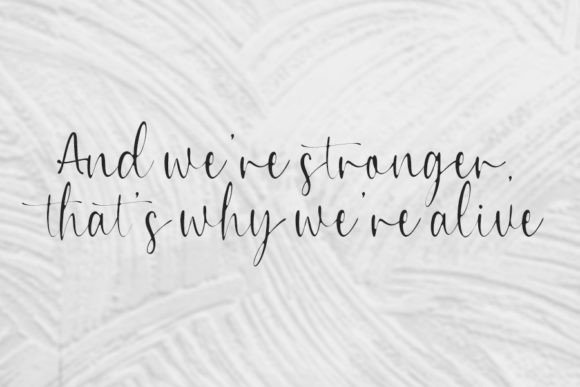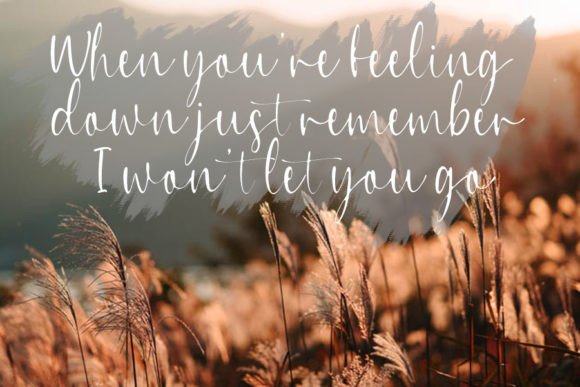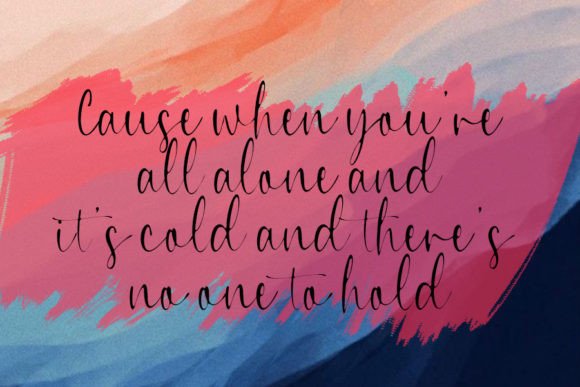
Adding a Personal Touch to Your Designs
You’ve just finished brainstorming the perfect concept for your next project, but something’s missing. The colors, the layout, the message – it all feels a bit too generic. That’s when you start thinking about the little things that can elevate your design from ordinary to extraordinary. For many creatives, the key to unlocking that special something lies in the typography.
That’s where the Cataliy Font comes in – a beautiful, hand-written style that adds a personal and welcoming touch to your designs. This unique font is perfect for creating custom stationery, greeting cards, and so much more. With its one-of-a-kind letterforms, you can make a lasting impression on your audience and leave a lasting memory.
The Cataliy Font is a valuable tool for designers who want to stand out from the crowd and connect with their audience on a deeper level. Its versatility and charm make it an ideal choice for a wide range of projects, from wedding invitations to business cards.
Cataliy Font Key Features
- Font Style: Elegant Script with a touch of modernity
- Unique Characteristics: Includes swashes, ligatures, and alternate characters for added flair
Cataliy Font Review
First of all, let’s talk about what works well with Cataliy Font. ✨ The elegant script design is perfect for creating eye-catching headings and titles. The fluidity of the letters is smooth and beautiful, making it ideal for any creative project. ✨ The font also has a good range of weights and styles, allowing you to customize the look to your liking.
Another great thing about Cataliy Font is its versatility. ✨ It can be used for both digital and print designs, making it a great choice for a wide range of applications. Whether you’re designing a website, a brochure, or a social media post, Cataliy Font is sure to impress.
- ⚠️ The font may not be the best choice for body text, as it can be difficult to read in smaller sizes.
- ⚠️ The font’s script design can make it difficult to use with certain font combinations, so be sure to test it out before using it in a design.
- ⚠️ The font may not be as widely supported as some other fonts, so be sure to test it out in different browsers and devices before using it in a production design.
Cataliy Font is a beautiful and elegant script font that is perfect for creating eye-catching headings and titles. While it may have some limitations, it’s a great choice for any creative project that needs a touch of sophistication.
For best results, use the Cataliy font in headings and titles to add a touch of elegance and sophistication.
Use the Cataliy font to create eye-catching headlines and titles in your designs.
Use the Cataliy font to add a touch of professionalism and style to your presentations and documents.
The Cataliy font is ideal for:
- Headings and titles in designs and presentations.
- Creating eye-catching headlines and posters.
- Adding a touch of elegance and sophistication to documents and presentations.
Remember to use the Cataliy font in moderation to avoid overwhelming your design.
Alternatives to Cataliy Font for Designers
Montserrat is a modern sans-serif font designed by Julieta Ulanovsky. It’s a great alternative to Cataliy Font for titles and headings due to its geometric and clean design. Montserrat is ideal for use in digital products, magazines, and websites where you need a modern and elegant look.
Montserrat is more geometric than Cataliy Font, making it a better choice for titles and headings. It also has a wider range of weights and styles, giving designers more flexibility in their designs.
Lato is a sans-serif font designed by Łukasz Dziedzic. It’s a great alternative to Cataliy Font for body text and paragraphs due to its clean and elegant design. Lato is ideal for use in digital products, websites, and magazines where you need a readable and modern font.
Lato is more readable than Cataliy Font, making it a better choice for body text and paragraphs. It also has a wider range of weights and styles, giving designers more flexibility in their designs.
Q: Is the Cataliy Font optimized for retina displays and high-DPI screens?
Yes, the Cataliy Font is carefully crafted to take advantage of high-resolution displays, providing crisp and clear rendering on retina displays and high-DPI screens. This ensures that your digital designs look their best, regardless of the device or screen resolution.